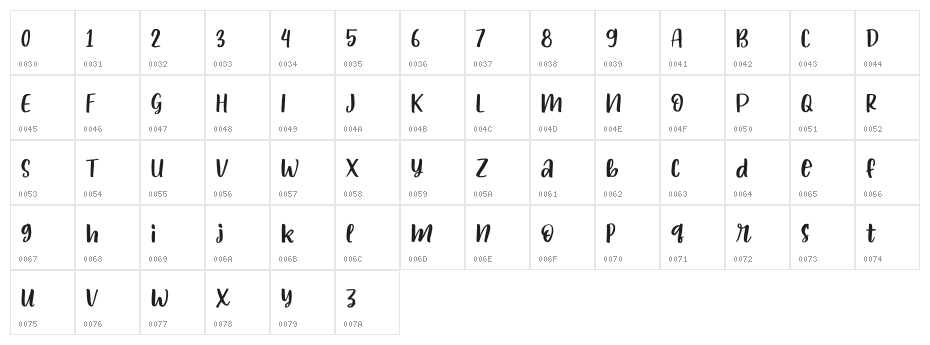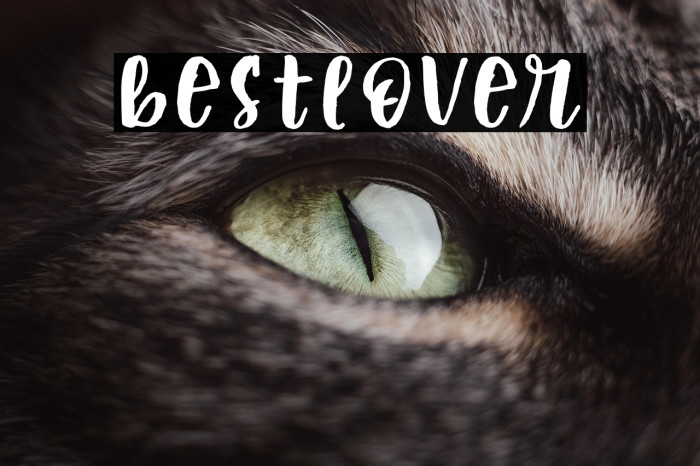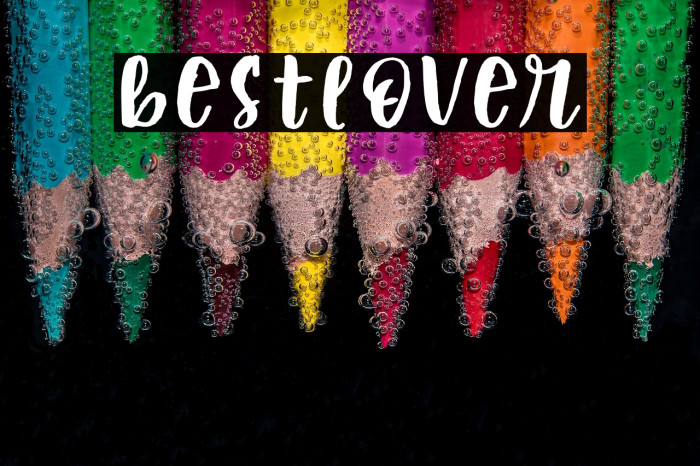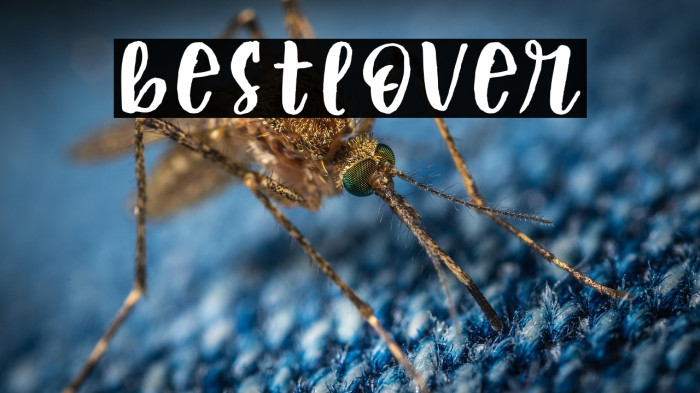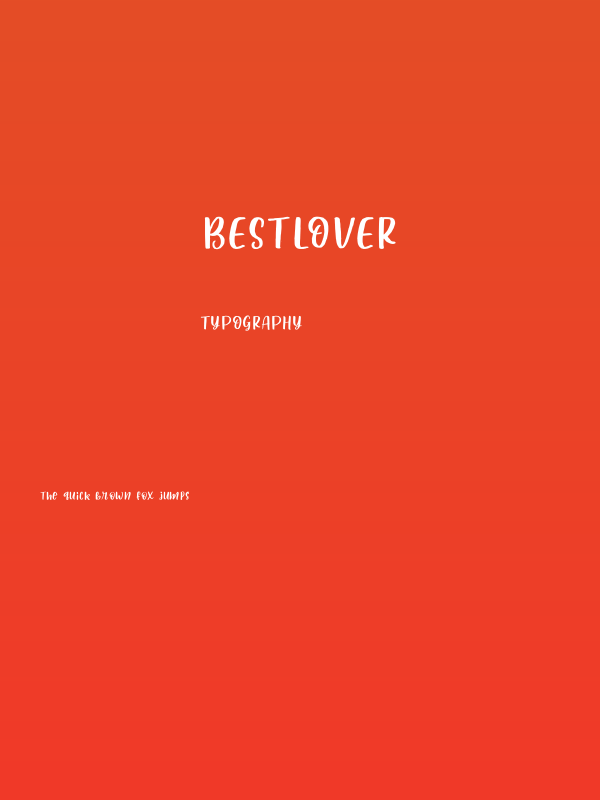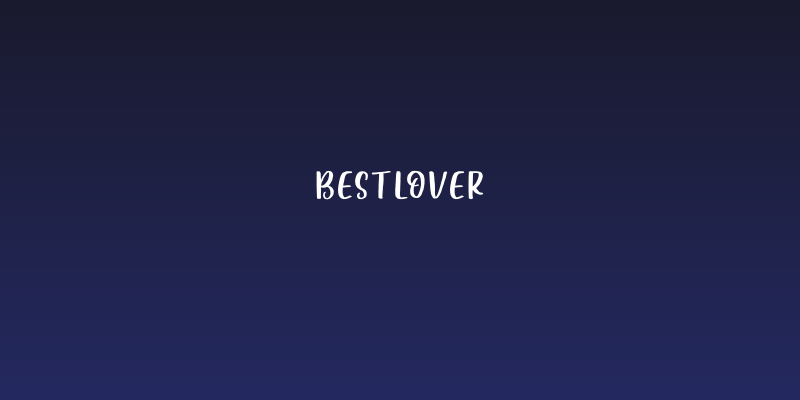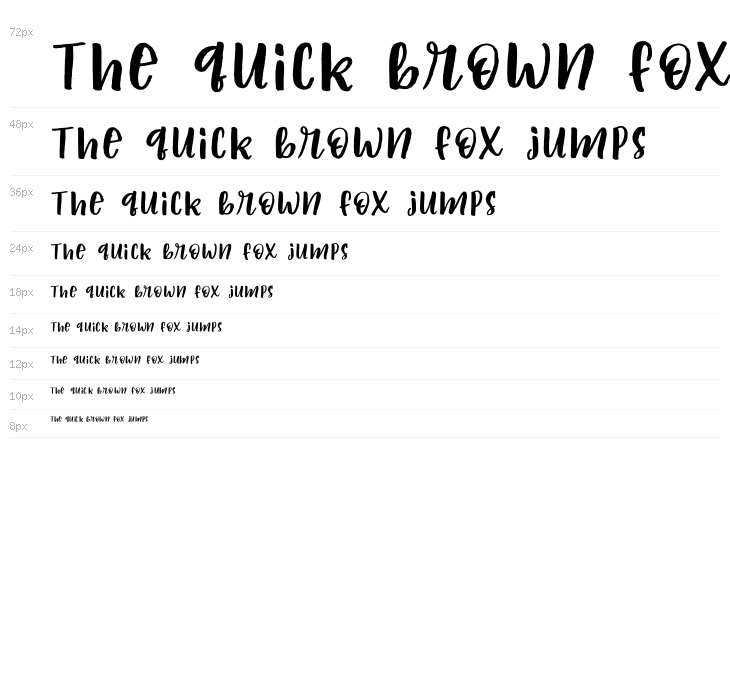
bestlover Font
bestlover Description
This font features a playful and casual handwritten style, characterized by its smooth curves and slightly irregular strokes that give it a personal touch. The letters are bold and have a consistent weight, making them easily readable while maintaining a friendly and approachable appearance. The uppercase and lowercase letters are well-balanced, with a slight slant that adds to the informal feel. The numbers and special characters are designed to match the overall style, ensuring a cohesive look across all text elements. This font is ideal for projects that require a touch of personality and warmth.
| Use Case | Logos, Headlines, Informal text |
| Proposed Projects | Greeting cards, invitations, social media graphics, and personal branding. |